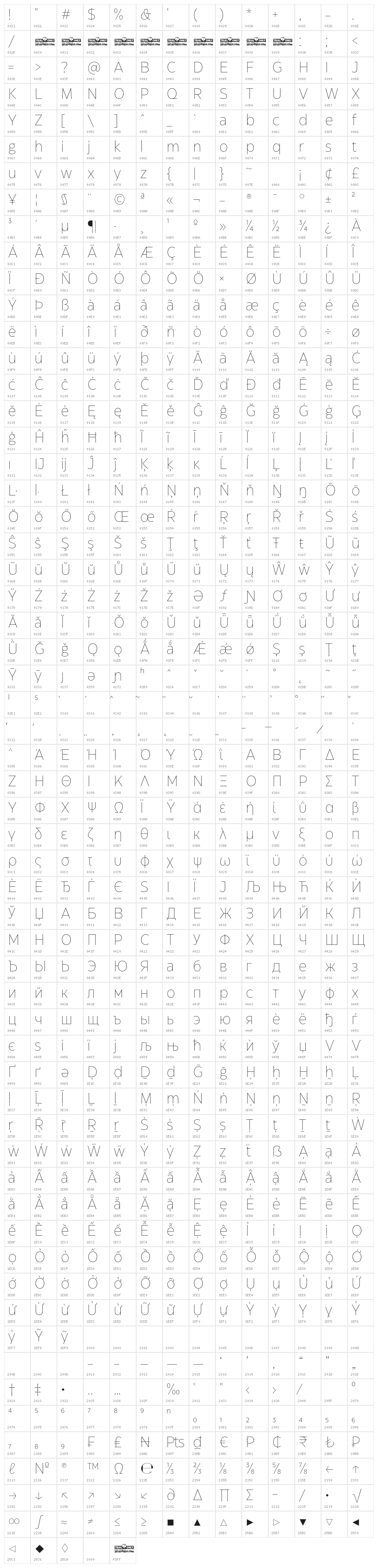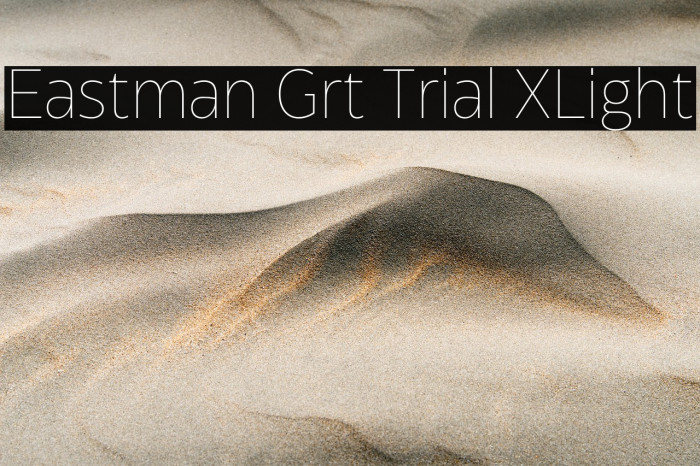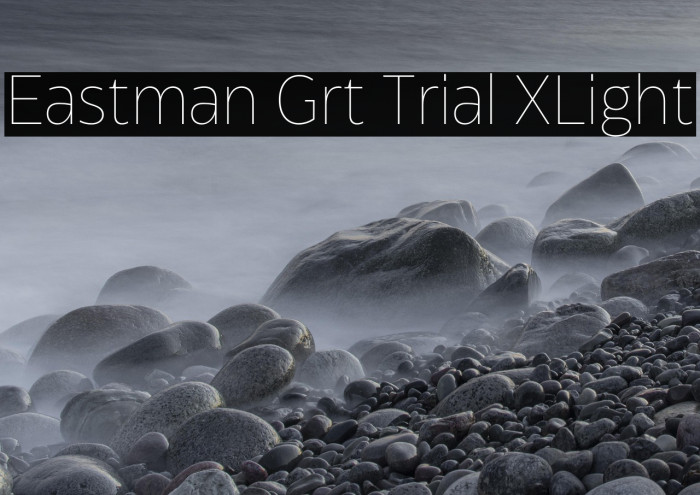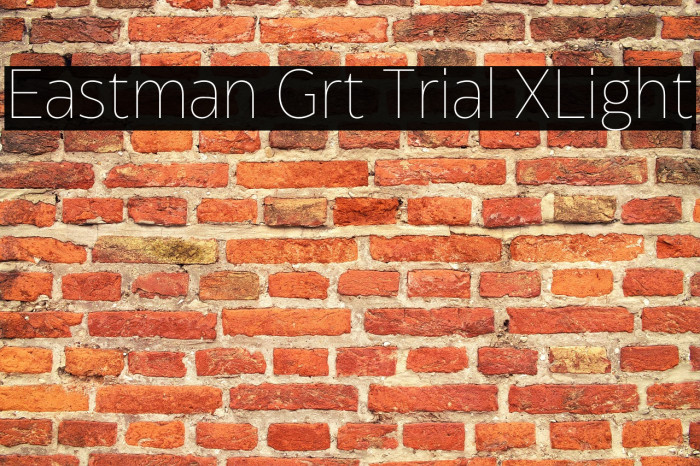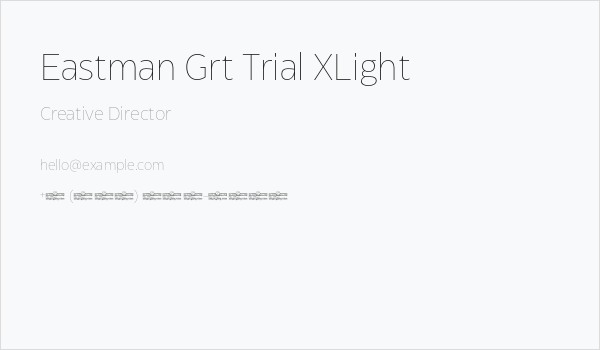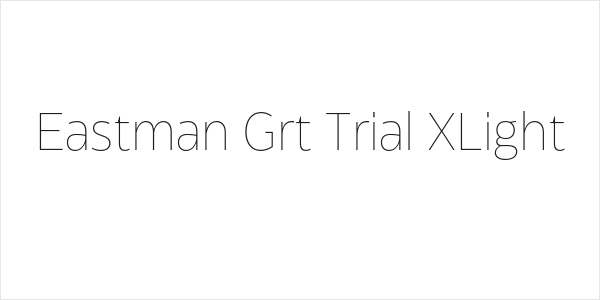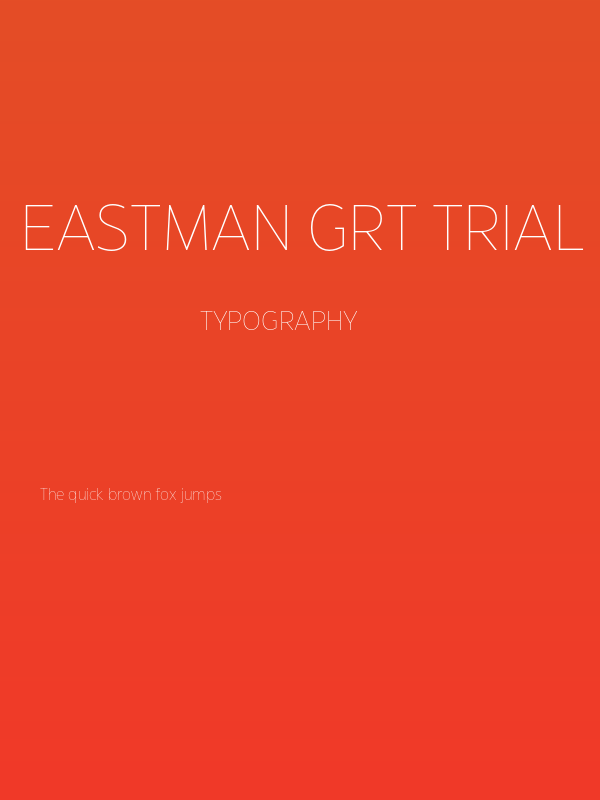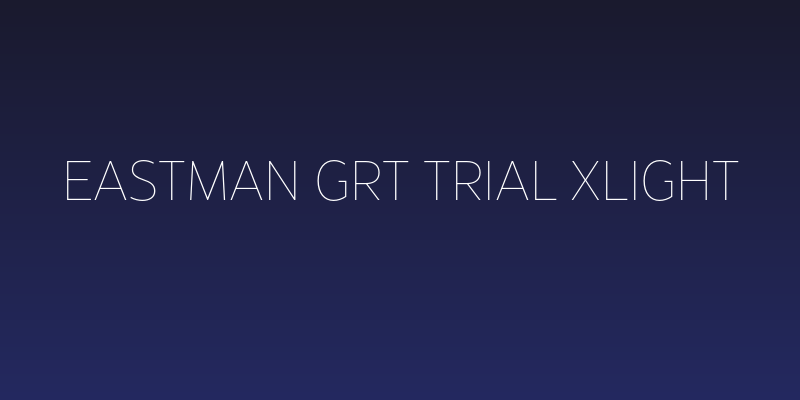
Eastman Grt Trial XLight Font
Eastman Grt Trial XLight Description
This font features a clean, minimalist design with thin, uniform strokes that create an airy and modern appearance. The characters are well-proportioned, with a consistent height and width that contribute to a harmonious look. The uppercase letters are slightly taller than the lowercase, maintaining a balanced visual hierarchy. The font's simplicity and elegance make it versatile for various design applications. Its geometric shapes and open counters enhance readability, while the subtle curves add a touch of sophistication. The special characters are designed with the same attention to detail, ensuring a cohesive overall style.
Proposed ProjectsIdeal for branding, editorial design, web design, and minimalist posters.